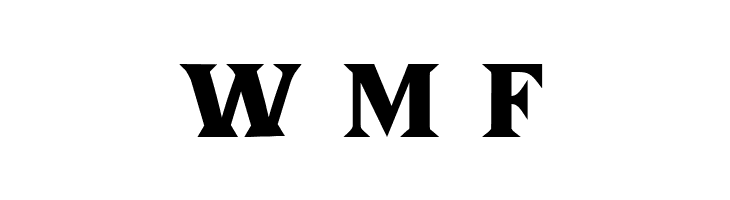
A classic oblique serif font with elegant proportions and moderate contrast.
A classic serif font with elegant strokes and refined proportions.
A classic serif font with elegant strokes and balanced proportions.
A modern, sans-serif typeface with clean lines and balanced proportions.
A clean and modern sans-serif font with balanced proportions and excellent readability.
A modern, monospaced font with low contrast and uniform spacing.
A monospaced font with classic typewriter aesthetics and slight serifs.
An elegant serif font with an oblique slant and moderate stroke contrast.
A sophisticated serif font with a blend of classic and modern elements.
A playful and elegant script font with flowing, cursive letterforms.
A modern serif font with elegant curves and balanced proportions.
A sketch-style, italicized font with a futuristic and dynamic appearance.
A modern, semi-bold sans-serif font with rounded characters and excellent readability.
A fine, narrow slab serif font with a modern and elegant style.
A bold serif font with classic, authoritative strokes and balanced proportions.
A modern, geometric font with bold, rounded characters and consistent structure.
A bold, classic serif font with strong strokes and sharp serifs.
A clean, modern typeface with elegant proportions and balanced strokes.
An elegant script font with flowing, interconnected letters and ornate details.
A modern, geometric sans-serif font with consistent stroke width and balanced proportions.
). ) A classic serif font with elegant strokes and balanced proportions.
A modern serif font with elegant, balanced letterforms and refined serifs.
A modern serif font with balanced proportions and versatile applications.
) A classic serif font with balanced proportions and moderate contrast, offering elegance and readability.
A classic serif typeface with elegant, readable letterforms and balanced proportions.
A classic serif font with elegant strokes and balanced proportions.
A classic serif font with elegant proportions and refined serifs.
A clean, modern sans-serif font with balanced proportions and consistent stroke width.
A classic serif font with modern elegance and balanced proportions.